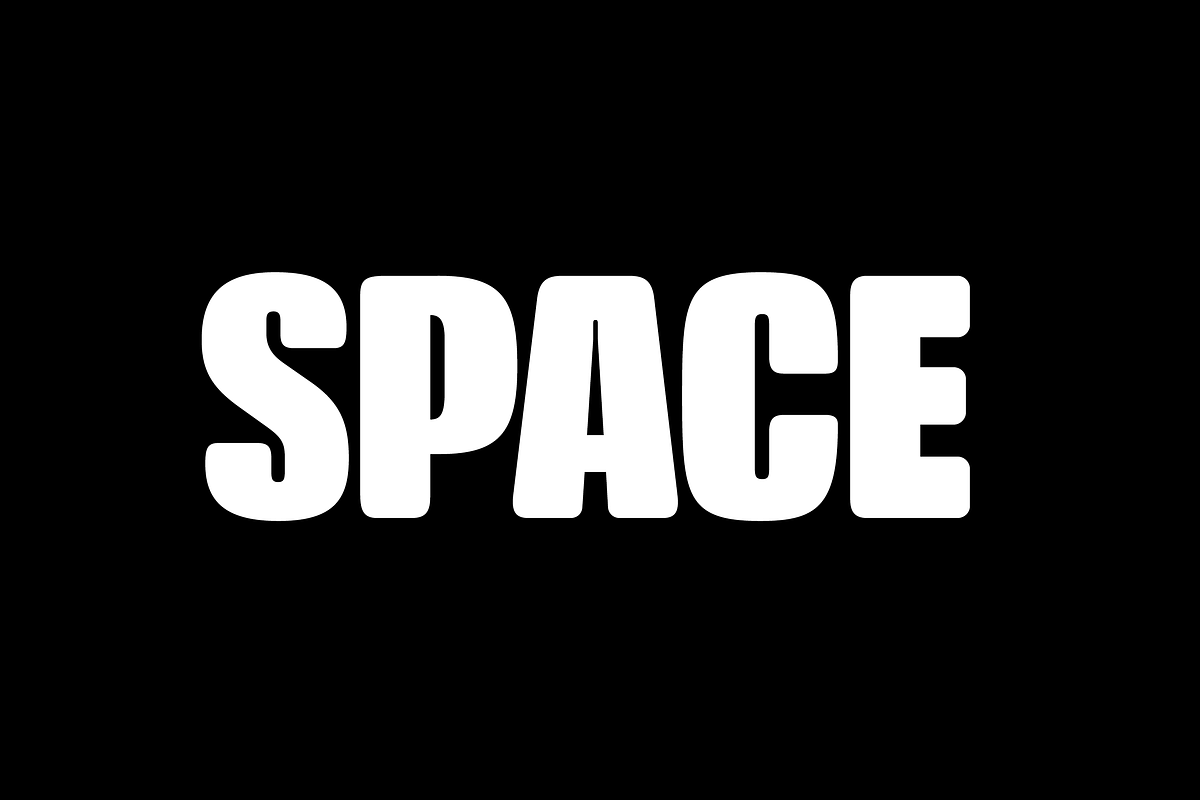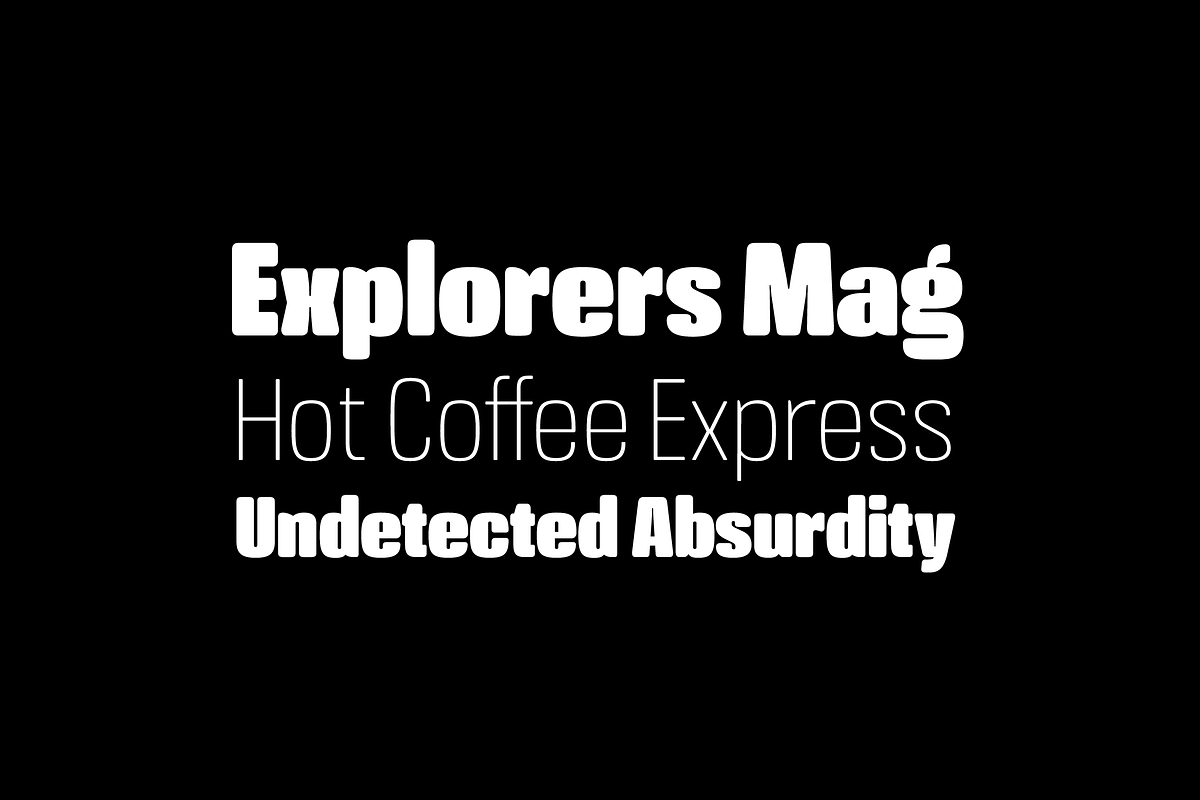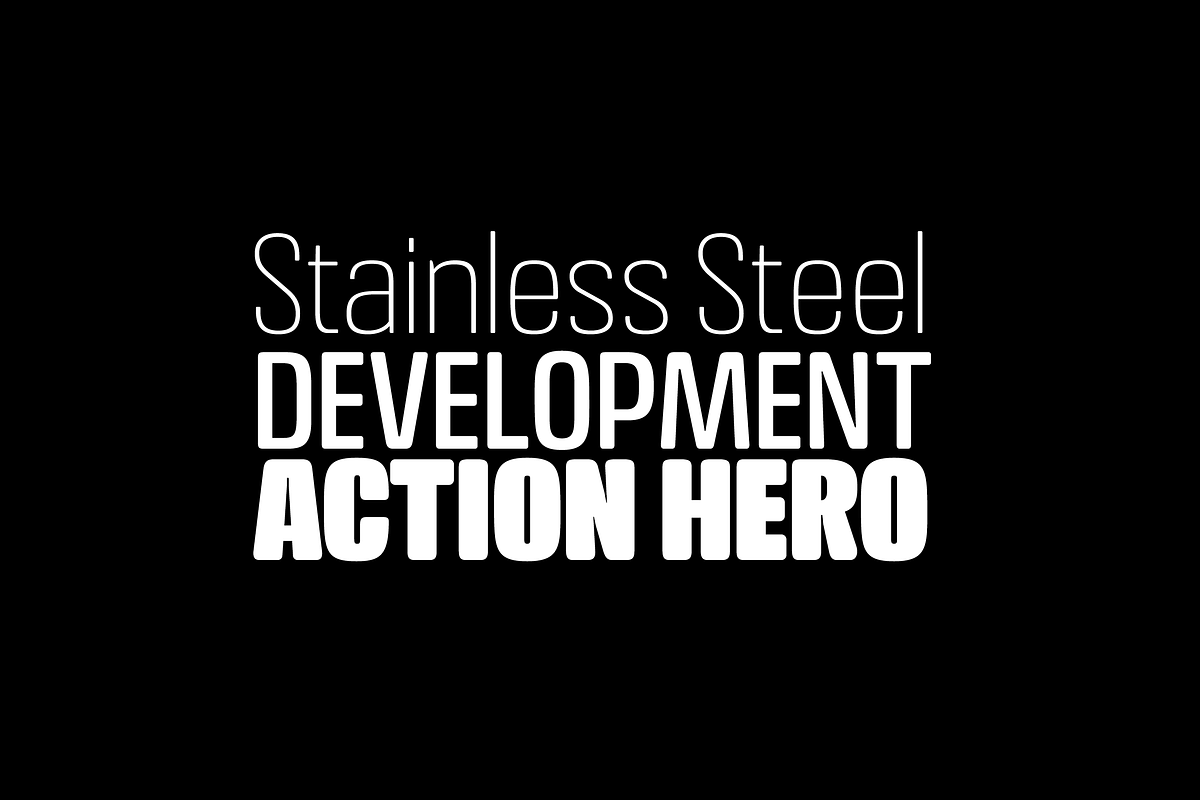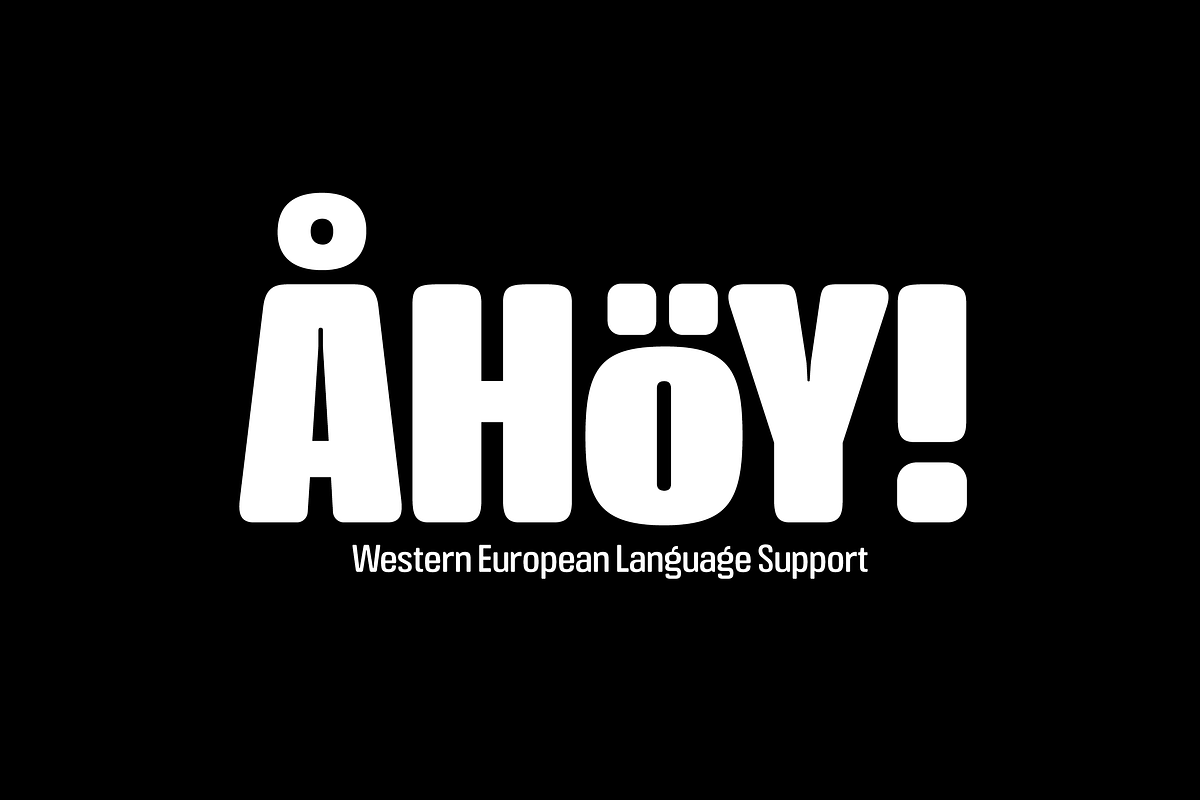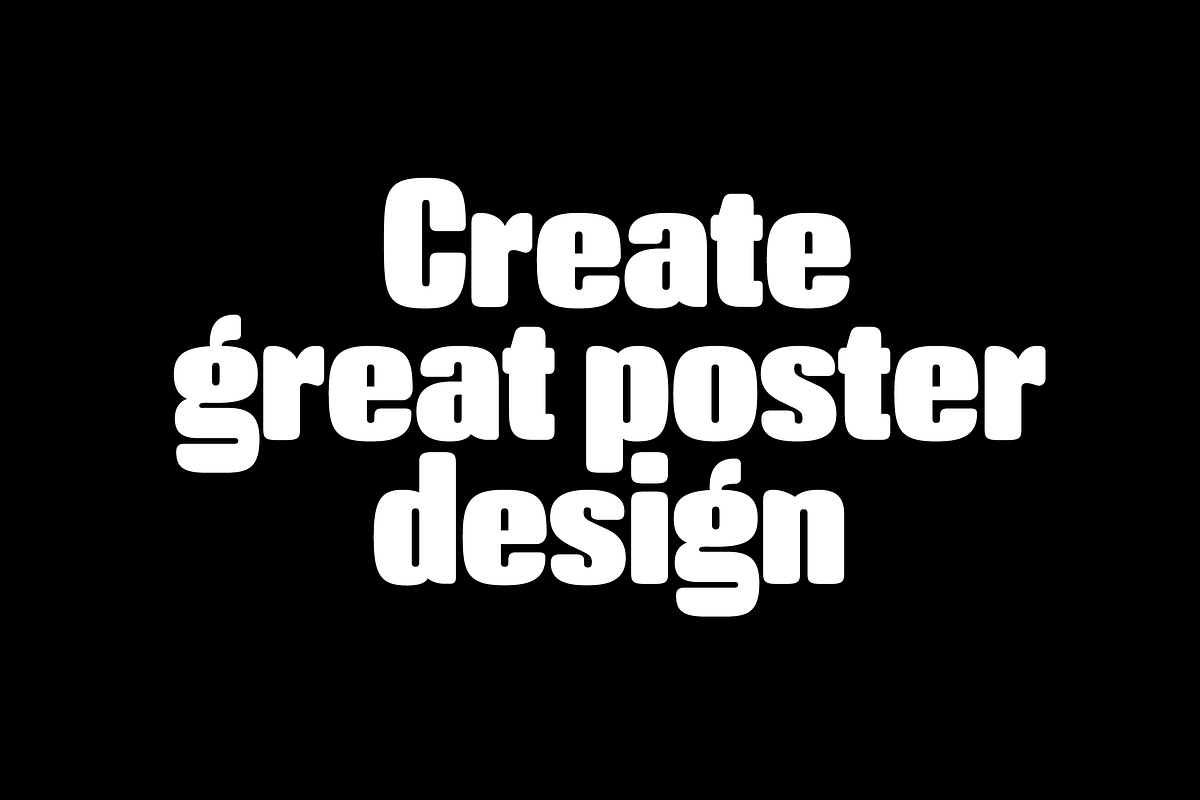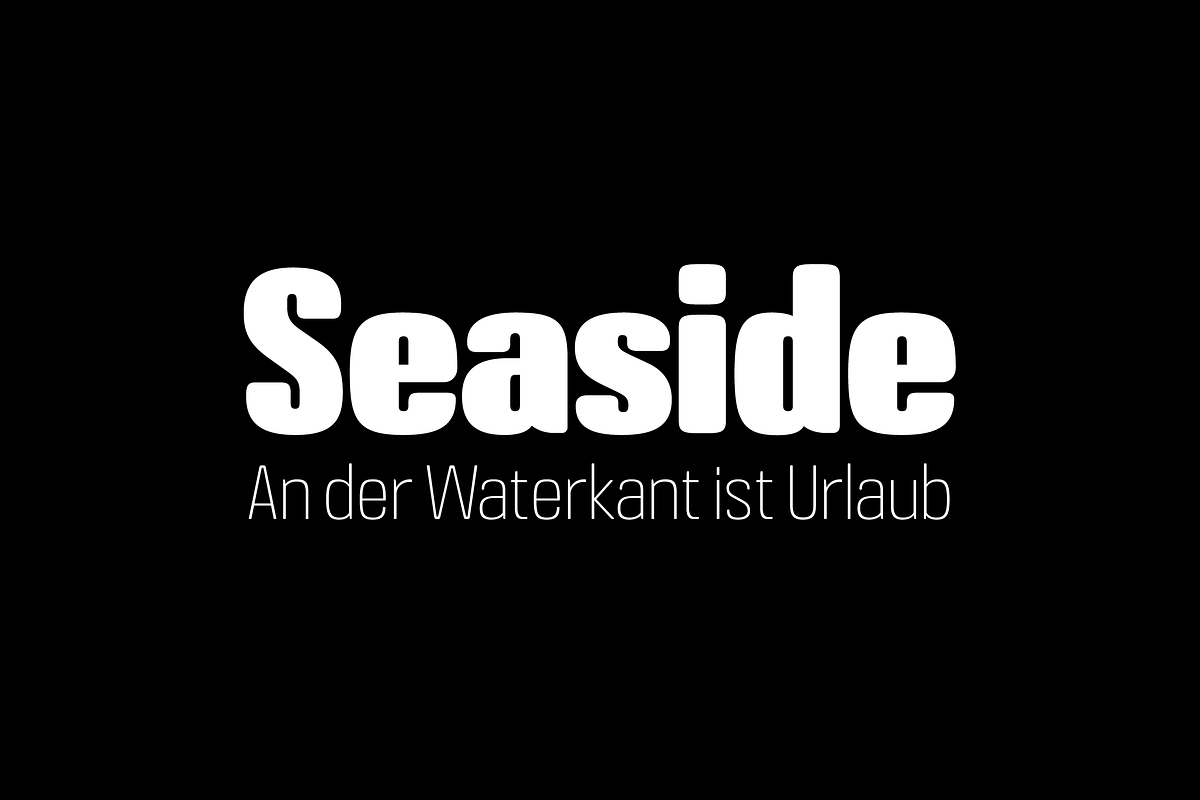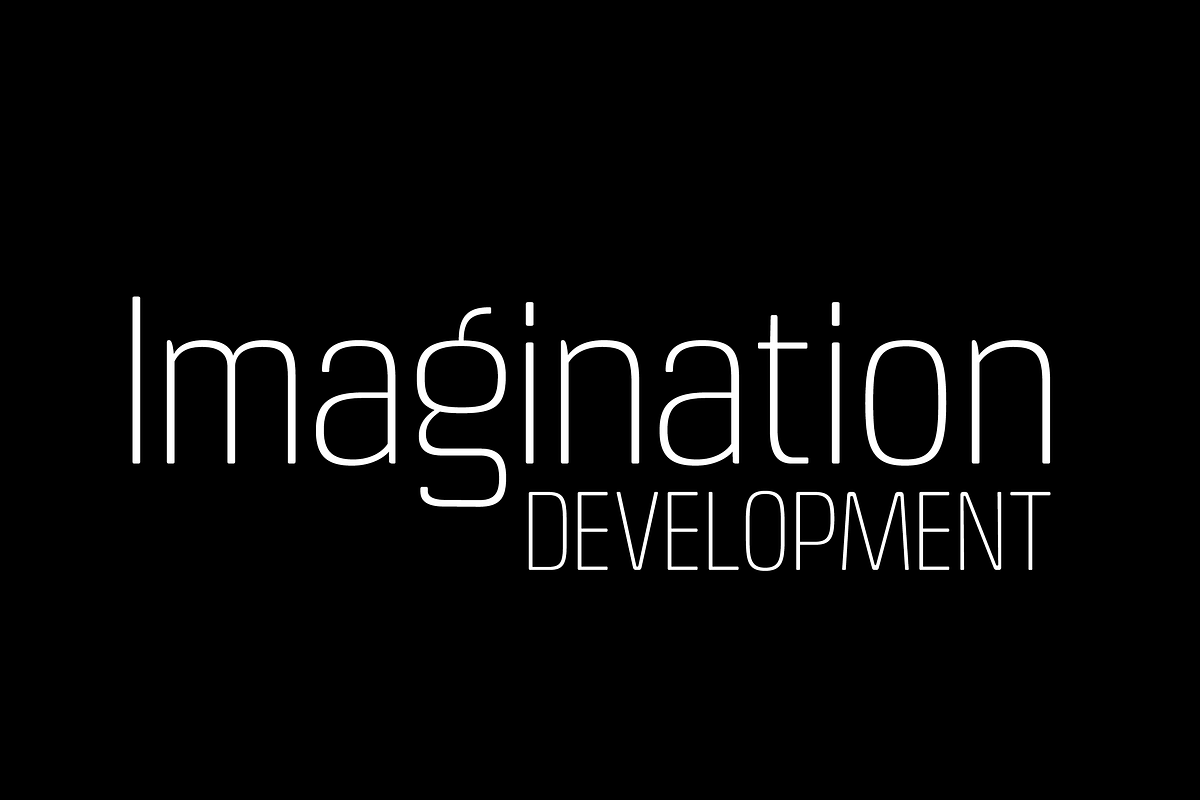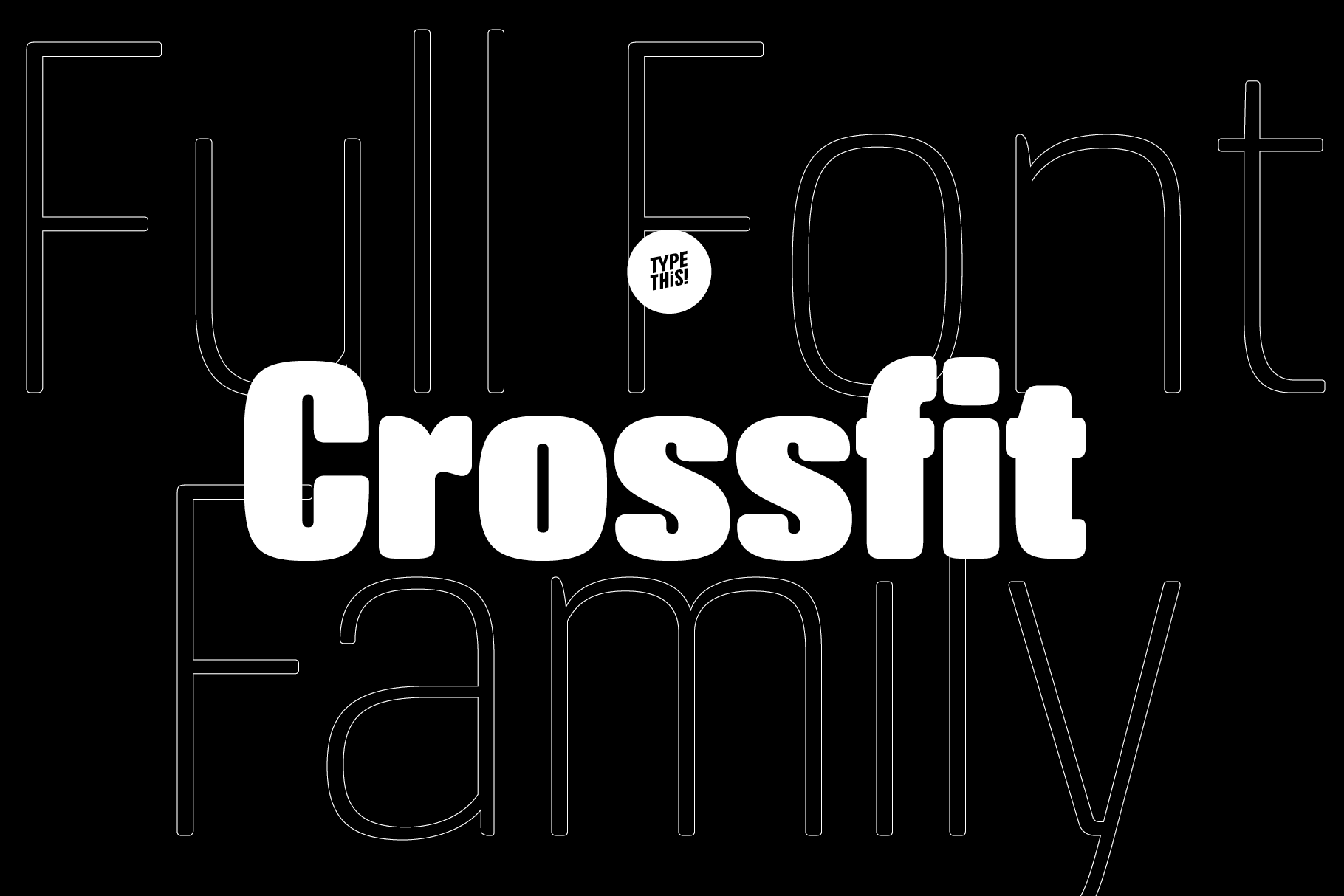
Crossfit is a new headline font for great sizes, such as big movie posters, advertising or editorials. Matching topics might be adventures, sports, strong nature and all kind of challenging life events. Its bold stability transformes your creation into a non questionable design. It is bold, clear and also friendly thanks to its rounded corners. With its non eccentric steadiness Crossfit underlines all your exciting creations in magazines, editorial, title design and of course: your big blockbuster movie.
- Hairline
- Thin
- Light
- Roman
- Demi
- Bold
- Black
- Heavy / Italic
The Crossfit Family supports 90 latin languages.